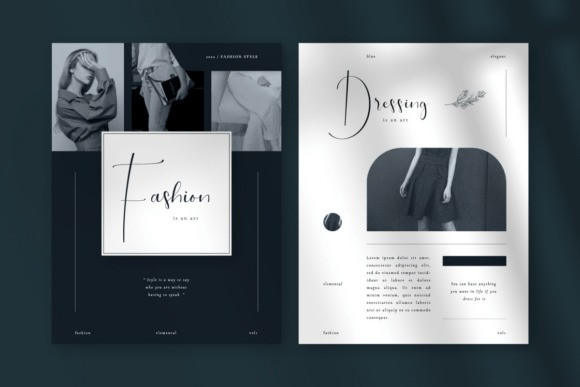
Wristler Font
Introducing a fresh Script Font, Wristler. It is the one of latest script fonts that bring feminine, casual, classic, and handwriting feels. “Wristler” is an appropriate use for invitations, cards, wedding projects, floral themes design, and more. It has unique curving and boldness, making “Wristler” look more irresistible than the usual handwritten font.